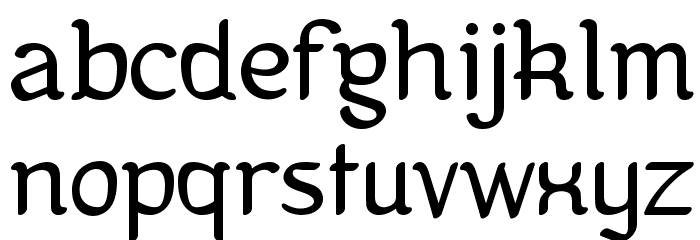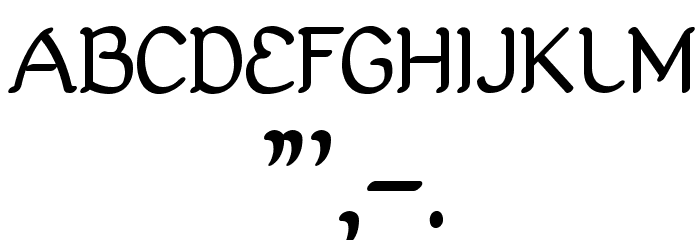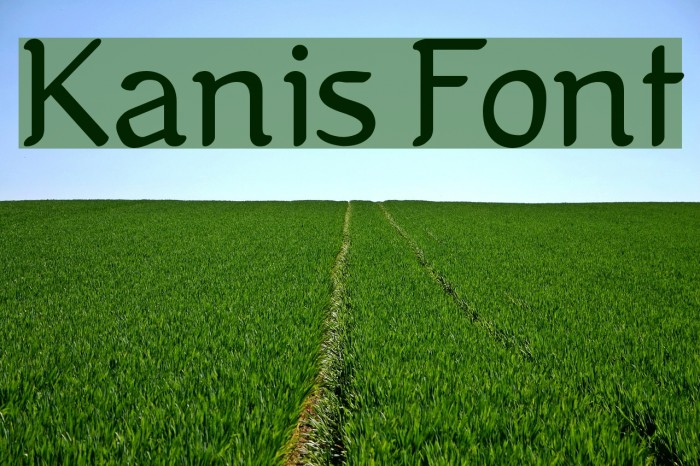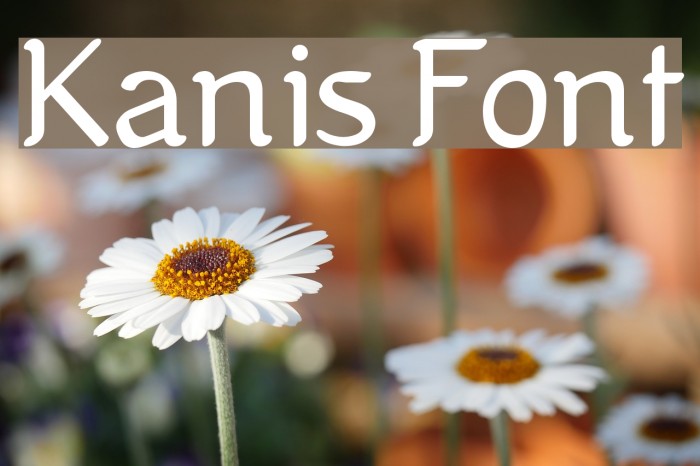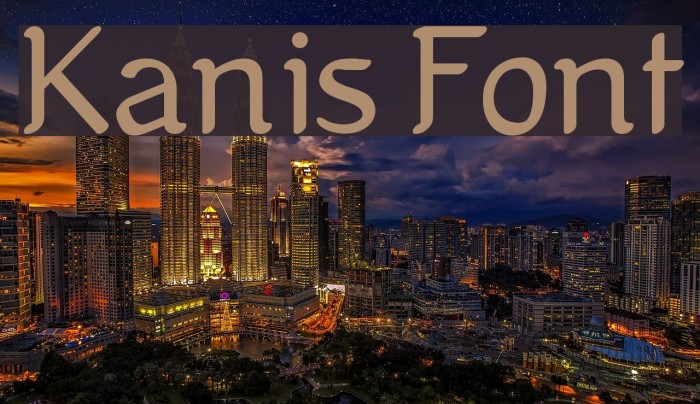
Kanis Font
This font features a playful and slightly whimsical design, characterized by its rounded and smooth curves. The letters have a consistent stroke width, giving it a uniform appearance. The uppercase letters are bold and prominent, while the lowercase letters maintain a friendly and approachable style. The font includes a full set of numerals and a selection of special characters, making it versatile for various uses. Its unique style is both modern and slightly retro, with a touch of elegance that makes it suitable for creative projects.
A playful, rounded font with smooth curves and a modern-retro style.
- Proposed Projects: Ideal for children's books, playful branding, creative posters, and casual invitations.
- Overall Style: Playful, Modern, Retro